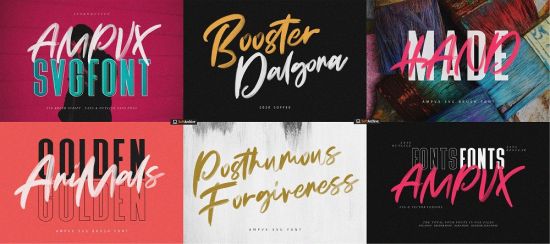
Give your designs an authentic brush handcrafted feel. "AMPVX" is perfectly suited to signature, stationery, logo, typography quotes, magazine or book cover, website header, flyer, clothing, branding, packaging design and more.